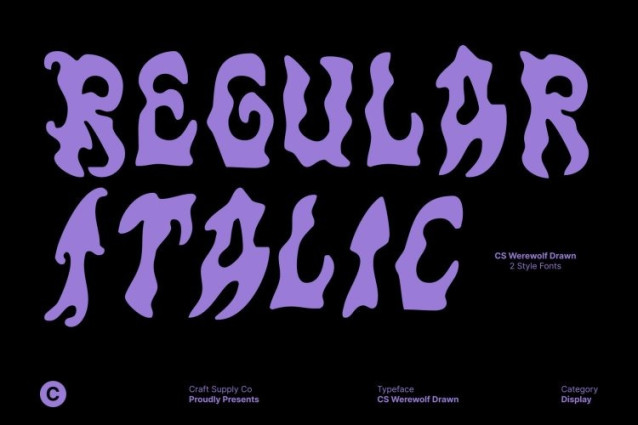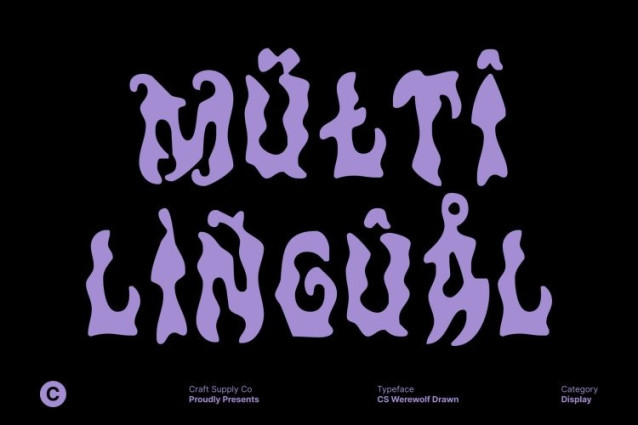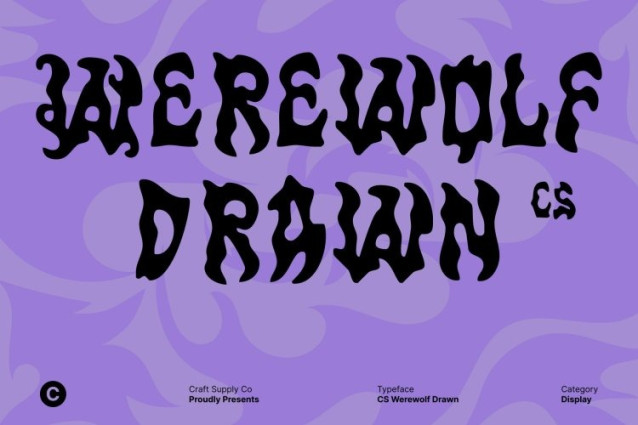
CS Werewolf Drawn Font
CS Werewolf Drawn Font This is a brutal black metal display font that captures the savage essence of extreme music culture. Built from jagged, aggressive letterforms and distorted, branching strokes, it delivers a chaotic and ferocious visual identity. The sharp edges and wild shapes feel untamed and violent, instantly evoking intensity, rebellion, and raw power.
Dark and Mysterious Hand-Drawn Aesthetic
Enhanced with a drawn effect, gains an even more sinister and organic presence. The handcrafted texture introduces irregularities and rough details that make each character feel alive, as if scratched or carved by hand. This artistic chaos amplifies the font’s eerie, occult, and mysterious atmosphere, perfect for dark and dramatic themes.
Designed for Extreme Music and Visual Impact
This font thrives in designs that demand attention and emotion. It is ideal for metal band logos, concert posters, album covers, underground zines, and horror-inspired visuals. The aggressive forms ensure maximum impact, making every title or headline feel intense, loud, and unforgettable.
Untamed Expression for Dark Creative Projects
More than just typography, this font is a statement of darkness and defiance. Whether used for black metal branding, horror projects, or avant-garde visuals, this font delivers a fierce blend of raw expression, mystery, and extreme attitude unleashing a powerful visual roar in every design.